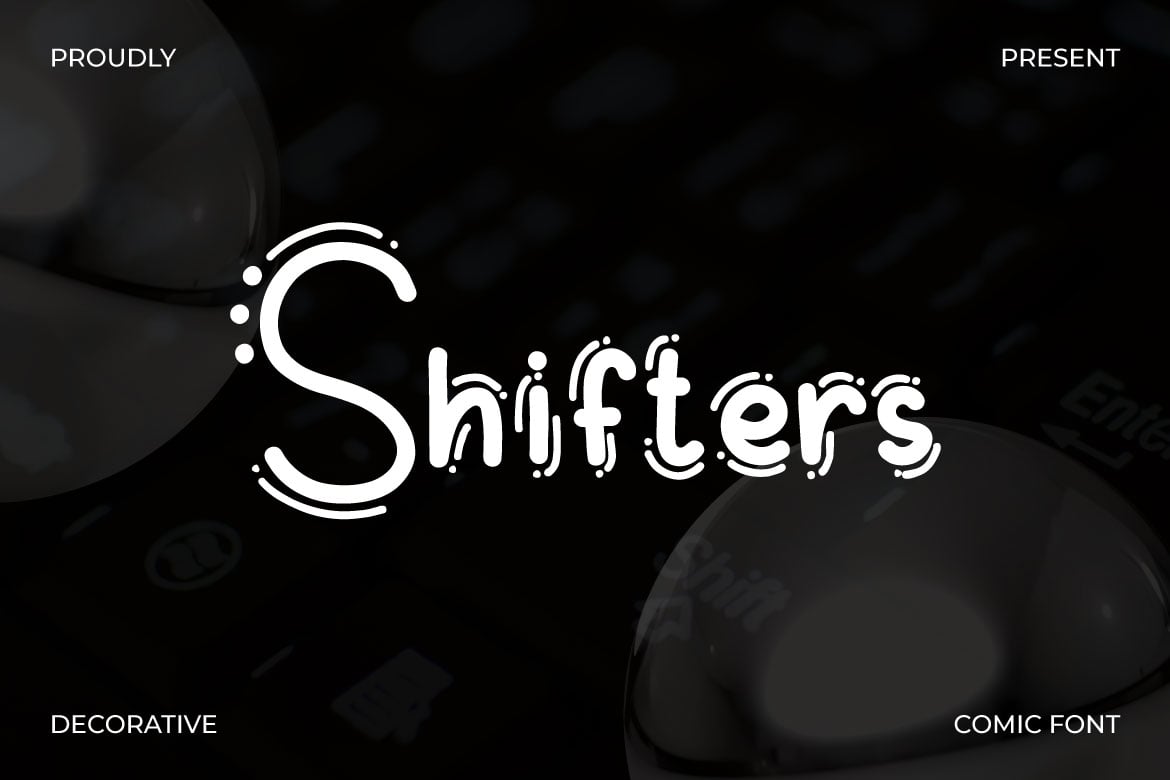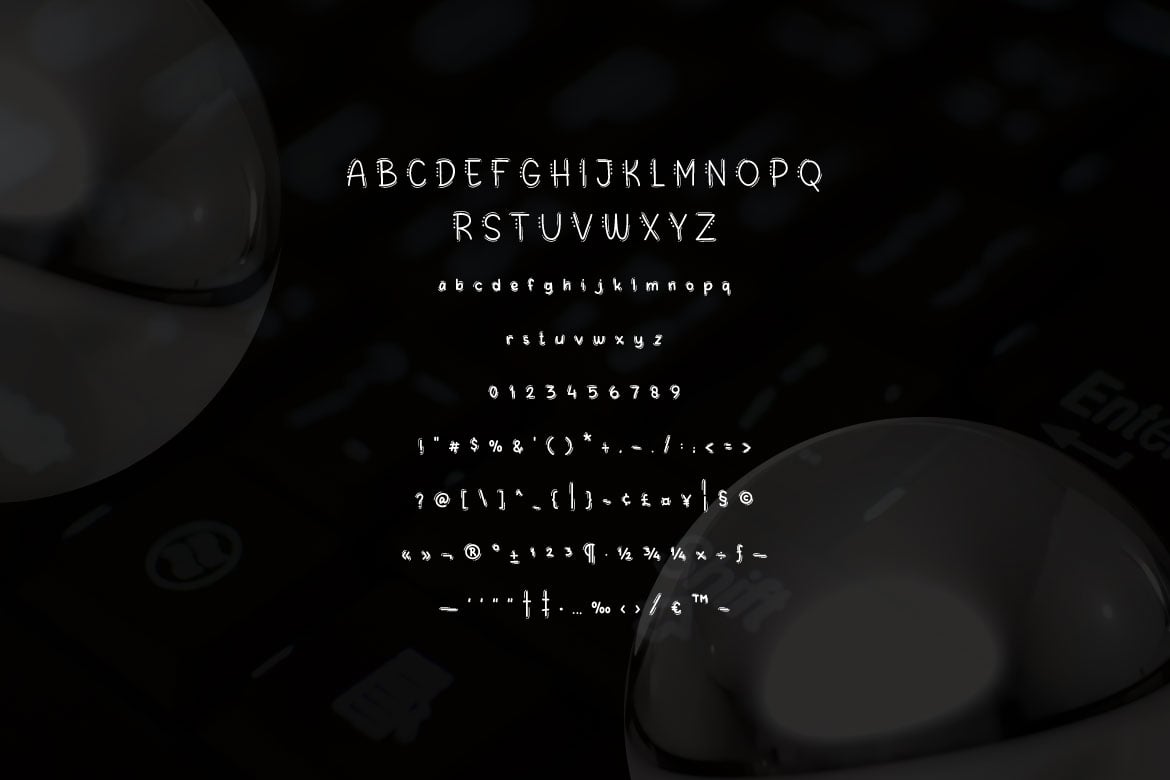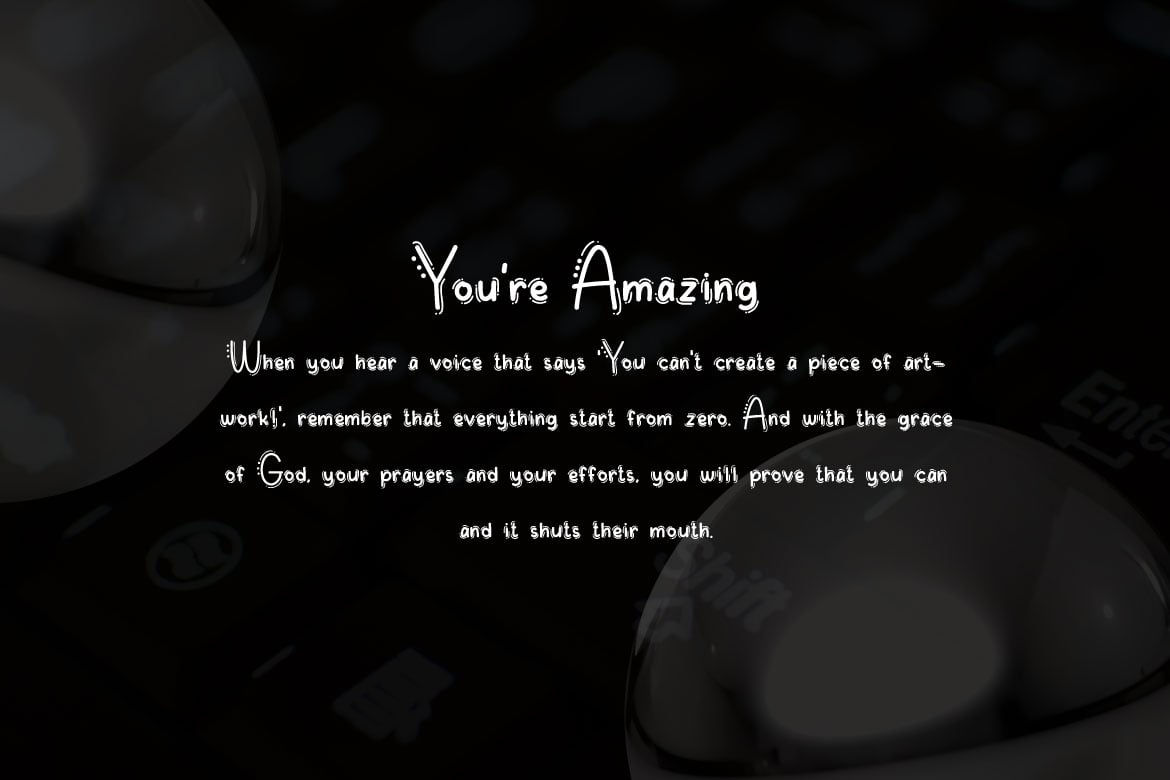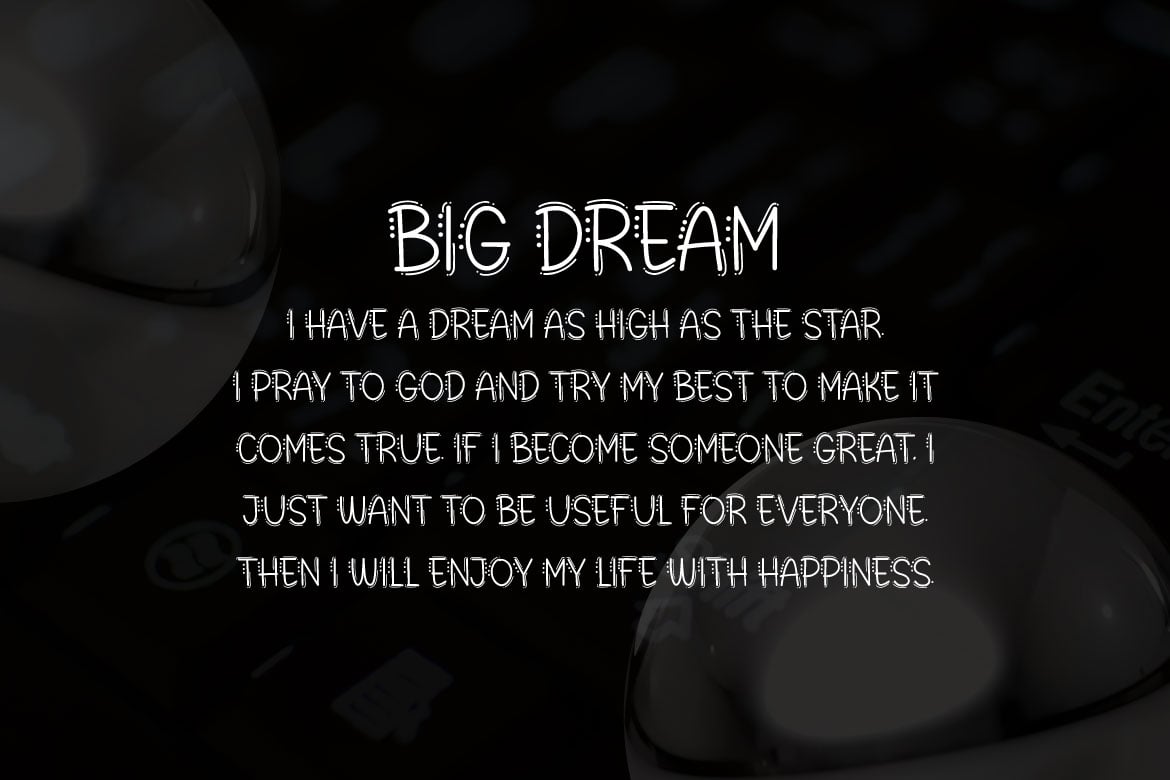
Shifters – Decorative Comic Font
Introducing Shifters, a delightful decorative font designed to infuse your comic creations with charm and personality! Crafted with care and attention to detail, Shifters is perfect for adding a touch of whimsical flair to your projects, whether you’re creating comics, graphic novels, children’s books, or any design requiring a playful touch.
With its quirky yet legible letterforms, Shifters strikes the perfect balance between fun and readability, ensuring that your message is conveyed with clarity while maintaining a distinct comic-book aesthetic. Each letter is meticulously crafted to exude a sense of liveliness and dynamism, capturing the essence of classic comic typography while offering a fresh and contemporary twist.